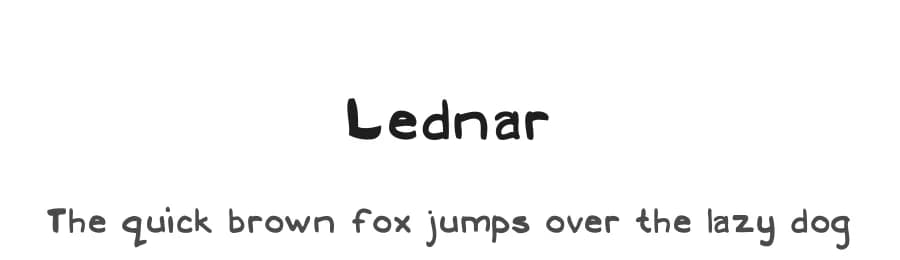
About Lednar Font
Lednar Font is a script font that shines as a display or heading face. Pair it with a clean sans-serif or serif font for body text β the contrast creates a clear hierarchy while the two styles stay balanced and easy to read.
Lednar Font
Lednar Font is a script handwritten typeface by Bill Johnston, ideal for logos, invitations, branding, and creative projects.